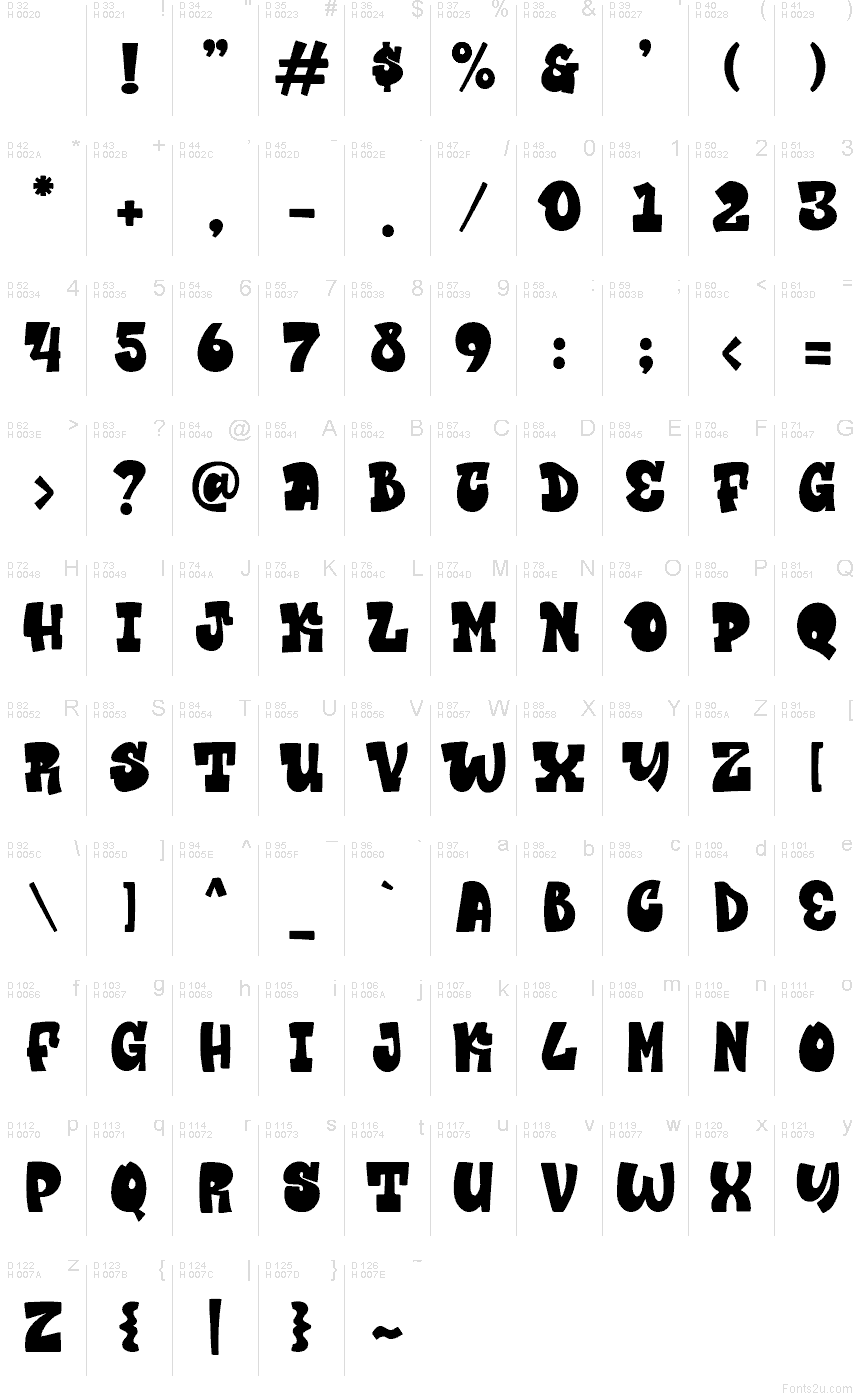
Stay Chill Regular
Stay Chill font by DM Letter Studio - Dimas Prasetyo is a free cartoon display typeface with a bold, inky swagger that feels straight out of a hand-painted poster. Each letter leans and curves with chunky, uneven energy, like it’s been squished and stretched by hand, giving your words a loose, carefree rhythm. The tight spacing and heavy black shapes make headlines hit hard while still feeling playful and relaxed.
Using Stay Chill, you can instantly give character to kids’ posters, streetwear branding, YouTube thumbnails, party invitations, stickers, and bold social graphics. This free font shines when it’s big, loud, and surrounded by color—pair it with a clean, thin sans serif for body text to keep layouts readable. Drop Stay Chill onto your next fun project and it’ll do the shouting for you, so you can, well, stay chill.